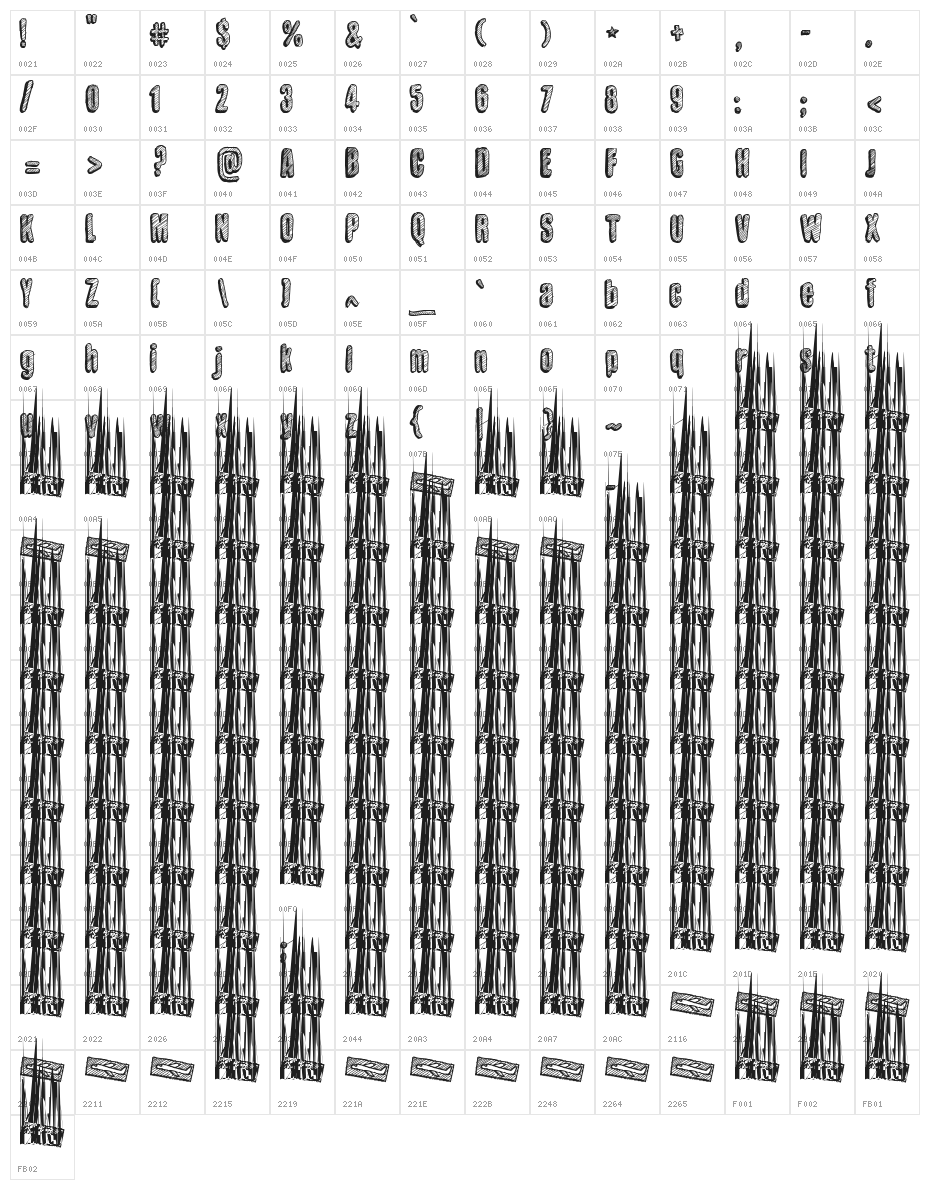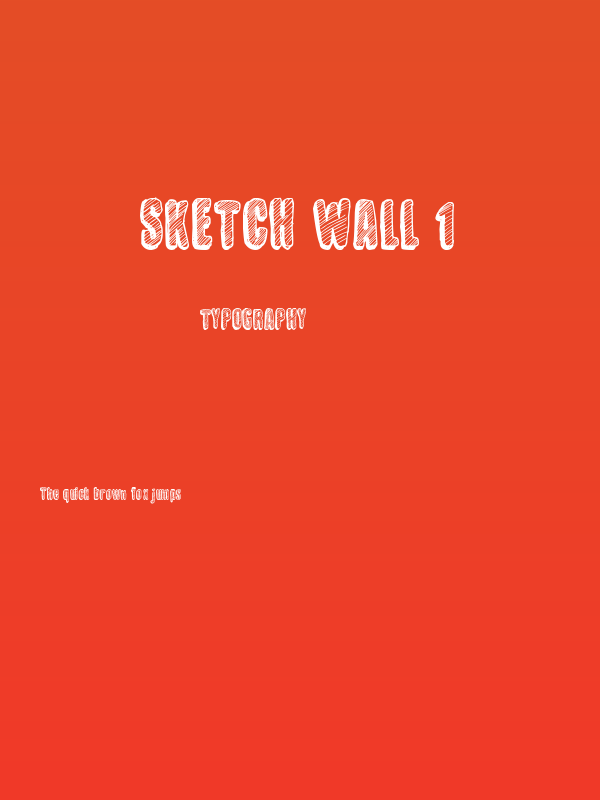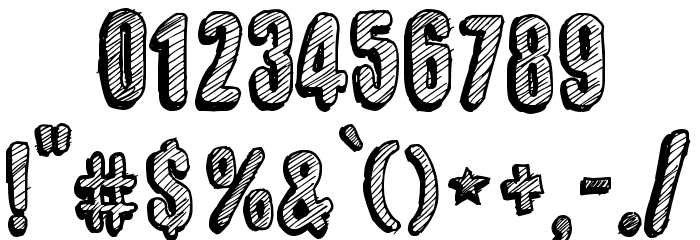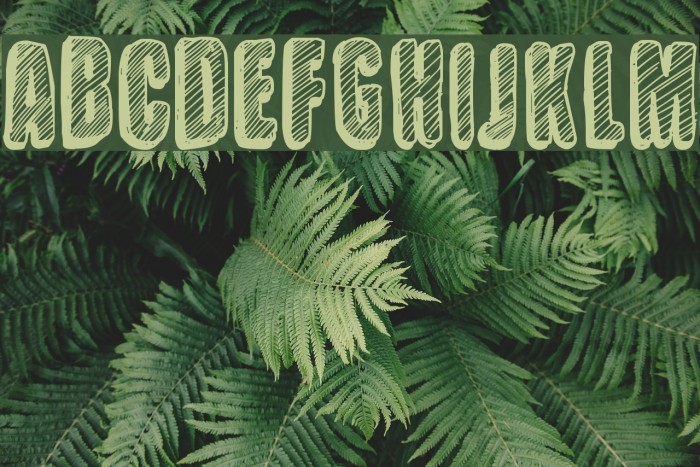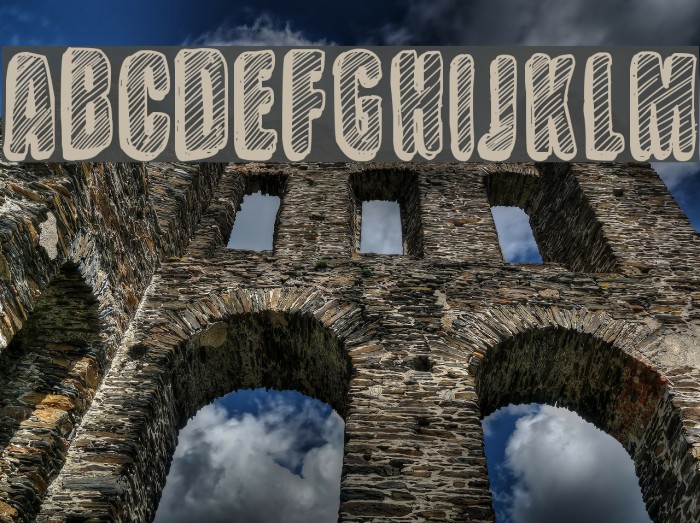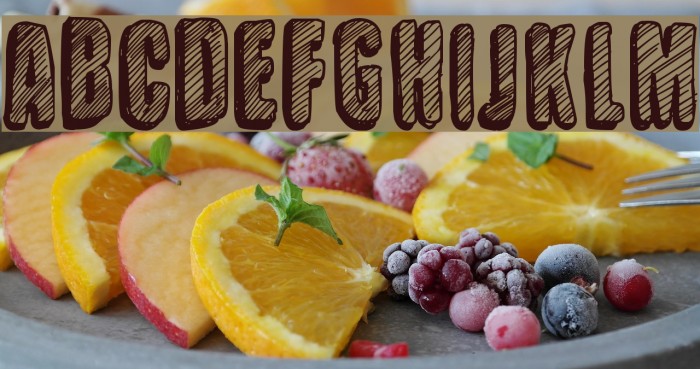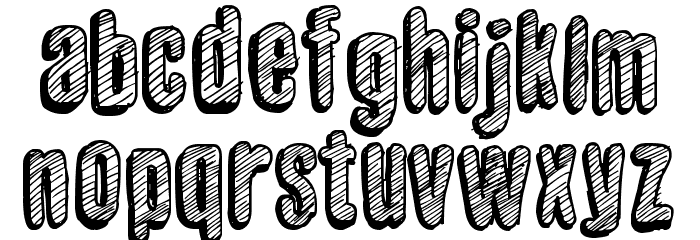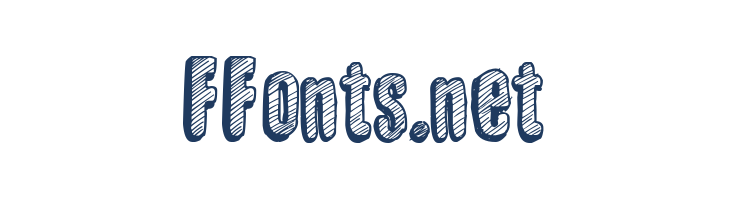
Sketch Wall 1 Font
This font features a playful, hand-drawn style with a sketch-like texture that gives it a unique and artistic appearance. Each character is outlined with a bold, black stroke and filled with diagonal hatching, creating a sense of depth and dimension. The letters are slightly rounded, adding a friendly and approachable feel. The uppercase and lowercase letters maintain a consistent style, while the numerals and special characters complement the overall design. This font's distinctive look makes it ideal for creative projects that require a touch of whimsy and individuality.
| Overall Style | Artistic, Playful |
| Proposed Projects | Ideal for children's book covers, playful branding, artistic posters, and creative social media graphics. |